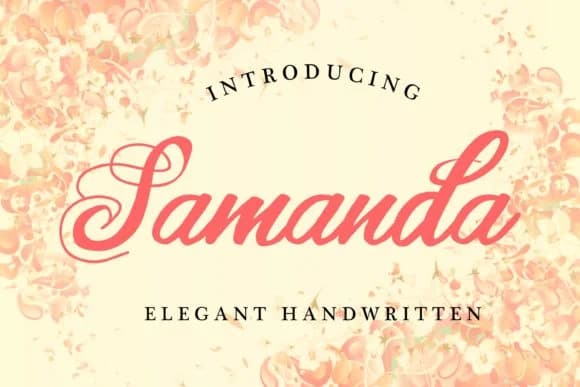
Samanda is a modern calligraphy script that captures hand-lettered warmth with a subtle textured edge. Designed by aksarangga, the font's letterforms dance across the baseline with a refined scratch quality that feels both contemporary and personal. The slight irregularity gives it character without sacrificing legibility, making it genuinely useful for serious design work rather than purely decorative applications.
This script excels on wedding invitation suites where couples want something beyond standard fonts, and it carries equally well onto Etsy product labels for small makers building their brand identity. Boutique skincare packaging benefits from its feminine sensibility, while DIY craft signs gain sophistication from Samanda's hand-drawn personality. The scratch texture adds visual interest that plain brush scripts often lack. You'll also find it works well for brand logos where authenticity matters more than polish, and on personal stationery designs that need warmth without being frivolous or overly trendy.
Samanda Font is a script font that shines as a display or heading face. Pair it with a clean sans-serif or serif font for body text β the contrast creates a clear hierarchy while the two styles stay balanced and easy to read.
Samanda Font
by aksarangga